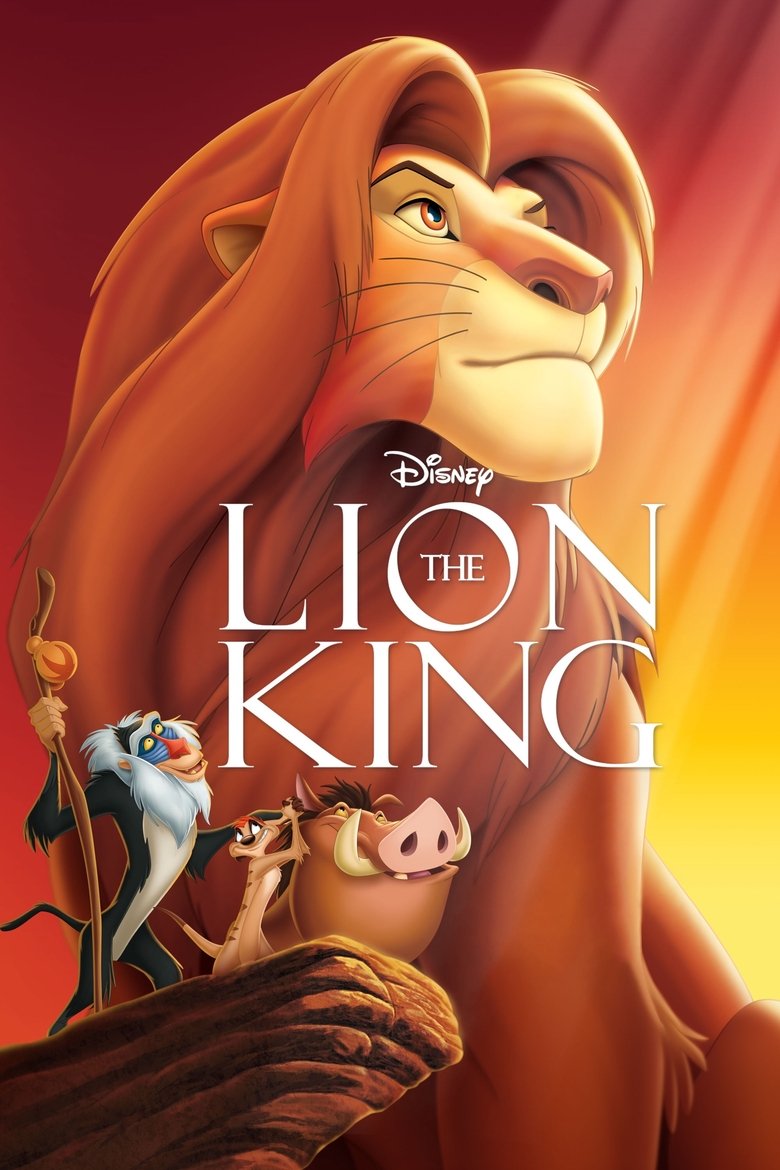
About the The Lion King font
The Lion King's logo is a warm, hand-carved display. Cinzel evokes that regal, sun-baked savanna feel.
The original The Lion King logo uses custom lettering. This generator recreates the look with Cinzel — a free, open-license font you can style and download.